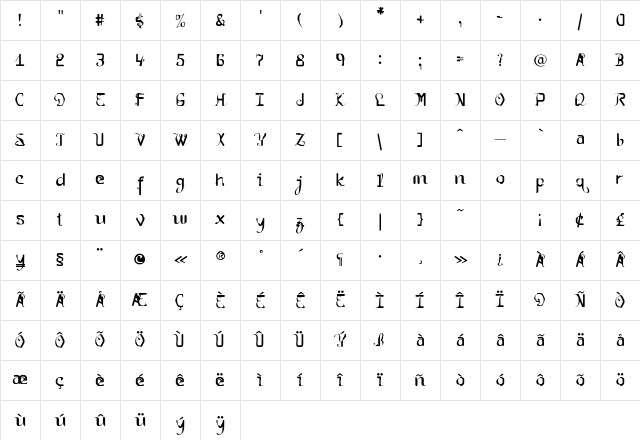
Razzia Regular Free Font
Razzia Regular
Design Context for Razzia
Razzia is a composed and adaptable typeface that performs quietly and consistently across a wide range of design contexts.